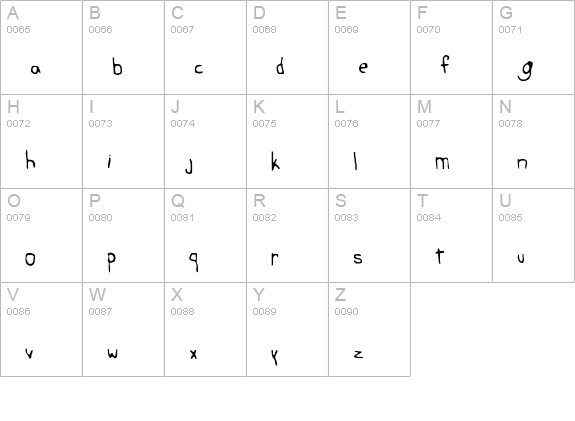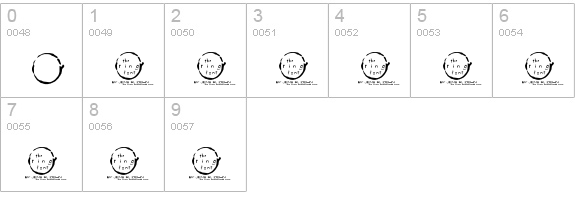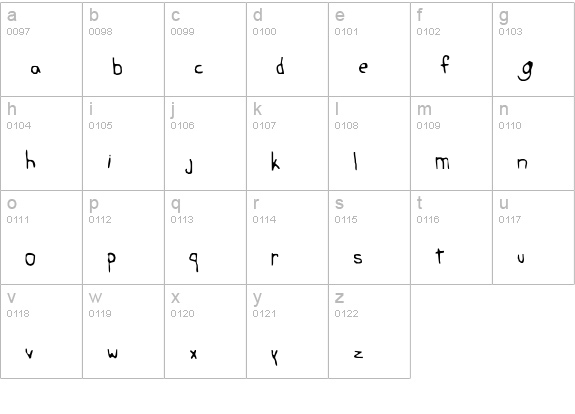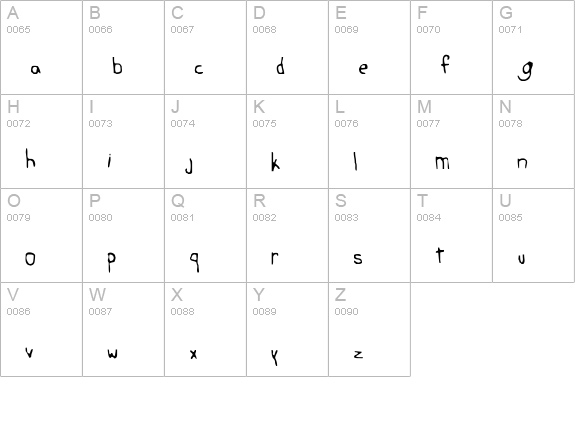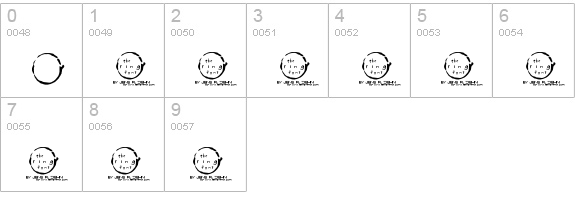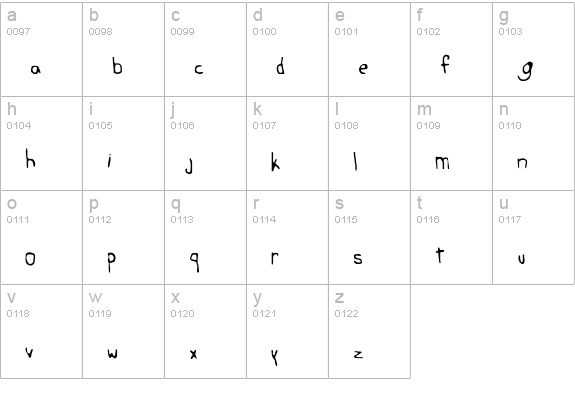
the ring Font Details
Introducing the exquisite Ring Font – a captivating typeface that exudes elegance and sophistication. With its delicate curves and intricate details, this font is perfect for adding a touch of luxury to any design project. Whether you're creating wedding invitations, luxury branding, or elegant packaging, the Ring Font will elevate your designs to the next level. This stunning font is available for free download exclusively at FontsMarket.com. Don't miss the opportunity to enhance your projects with this beautiful typeface. Embrace the timeless beauty of the Ring Font and let your creativity shine. Download it today and start creating breathtaking designs that will leave a lasting impression.